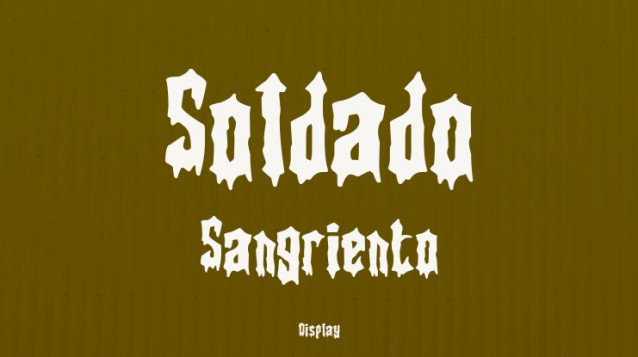
Soldado Sangriento Font
Soldado Sangriento Font is the ultimate horror display font! It caters to a global audience. It is perfect for posters, marketing materials, creepy movie titles, Death metal logos, Halloween crafts and a variety of creepy projects.